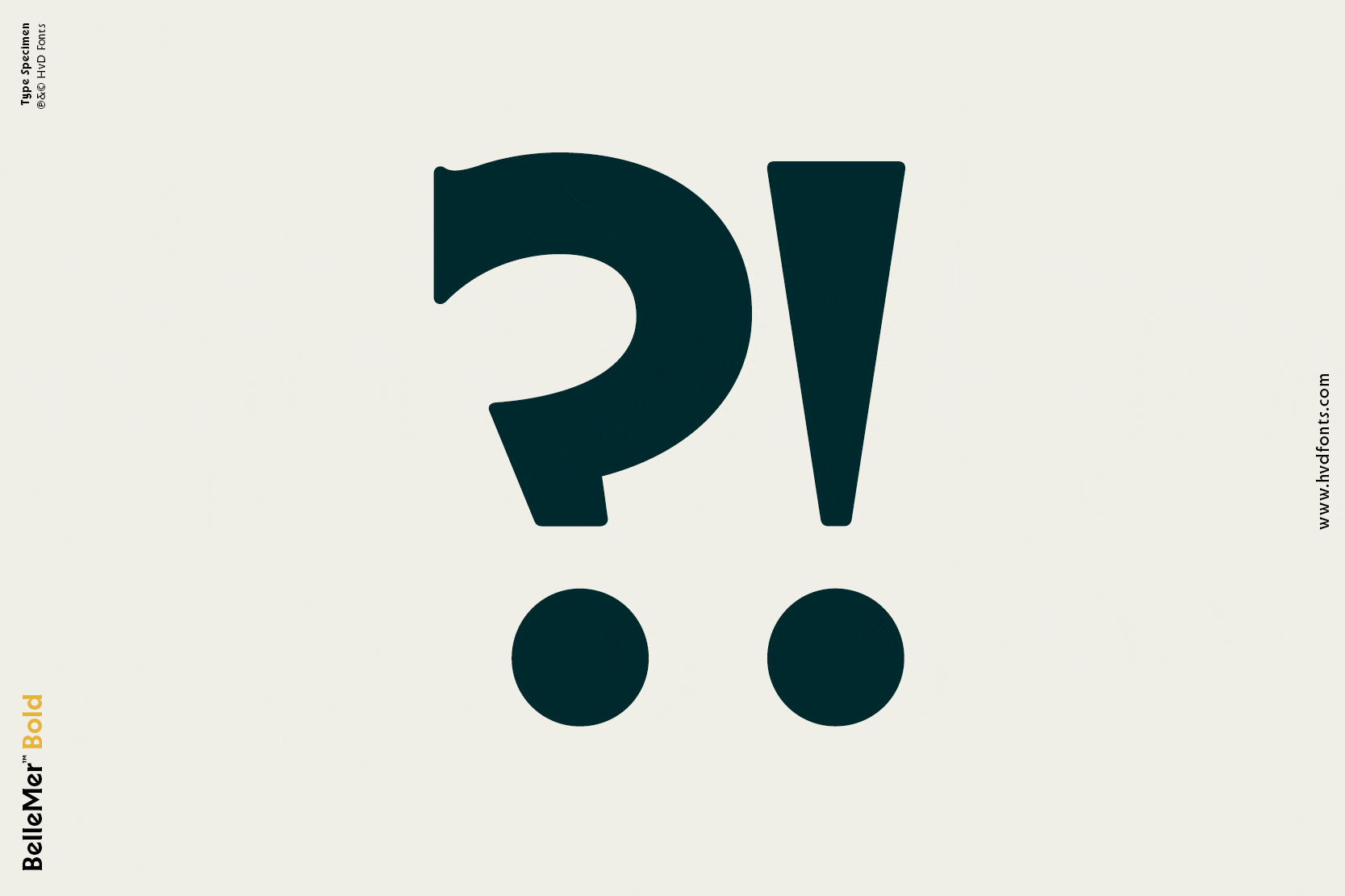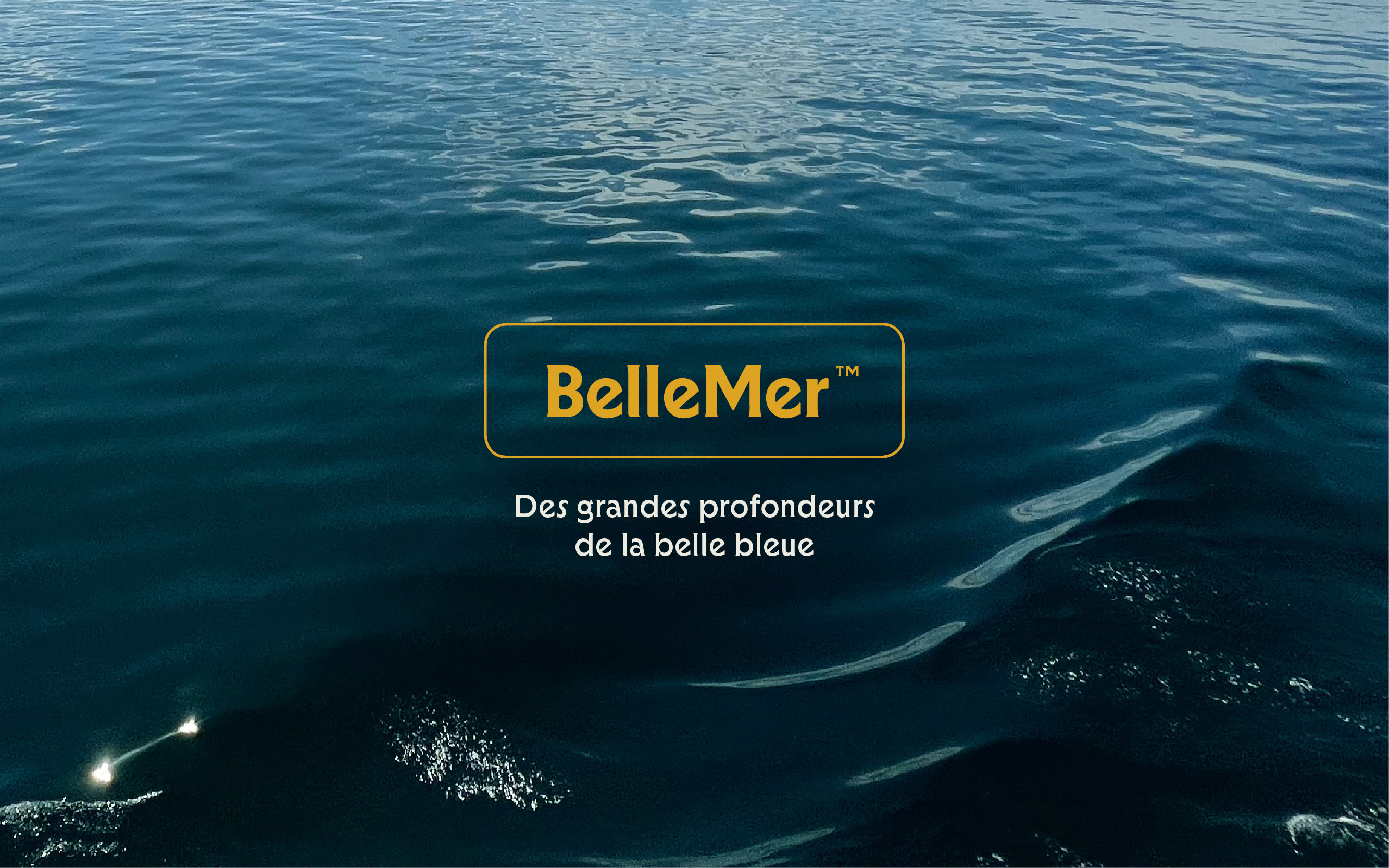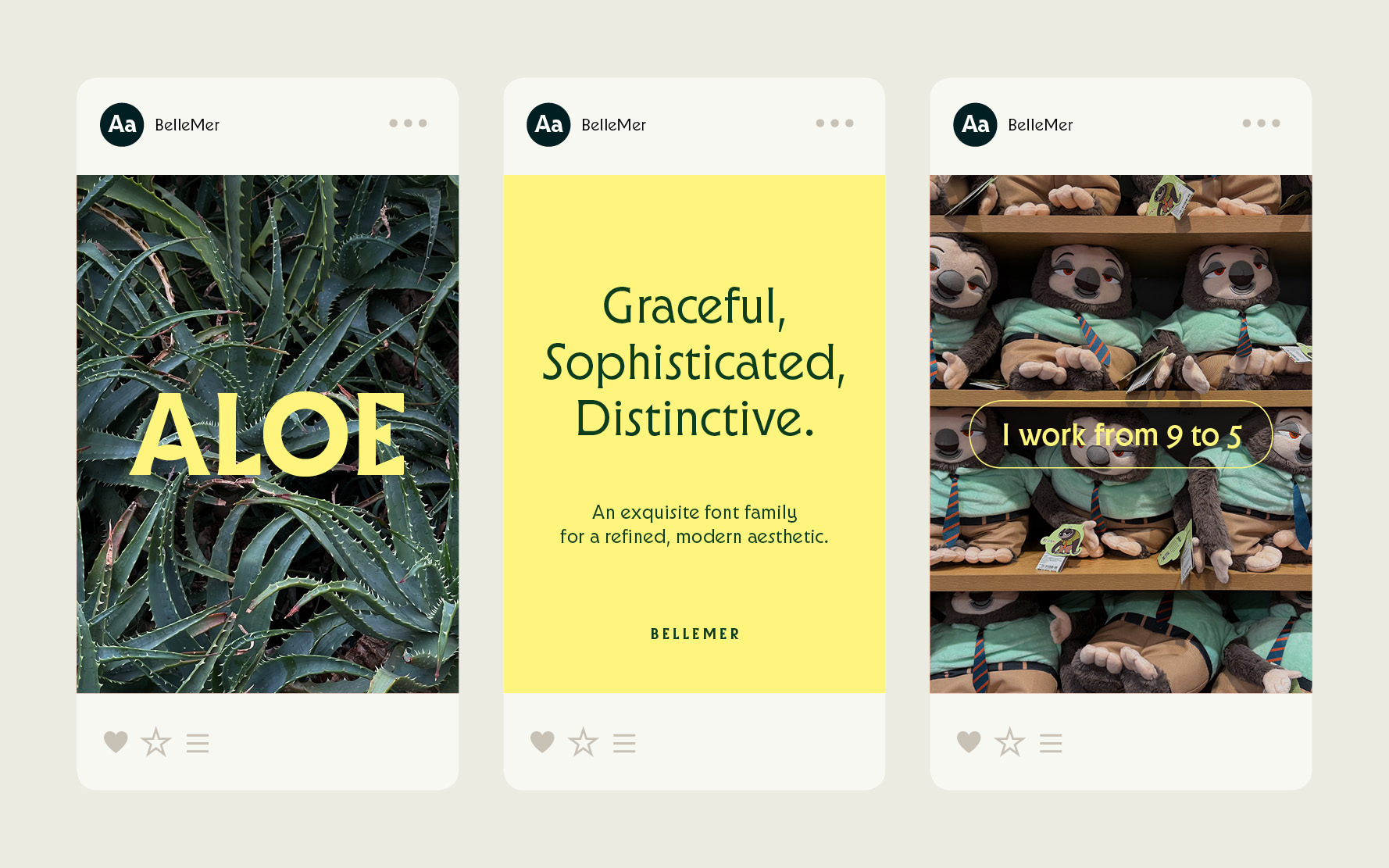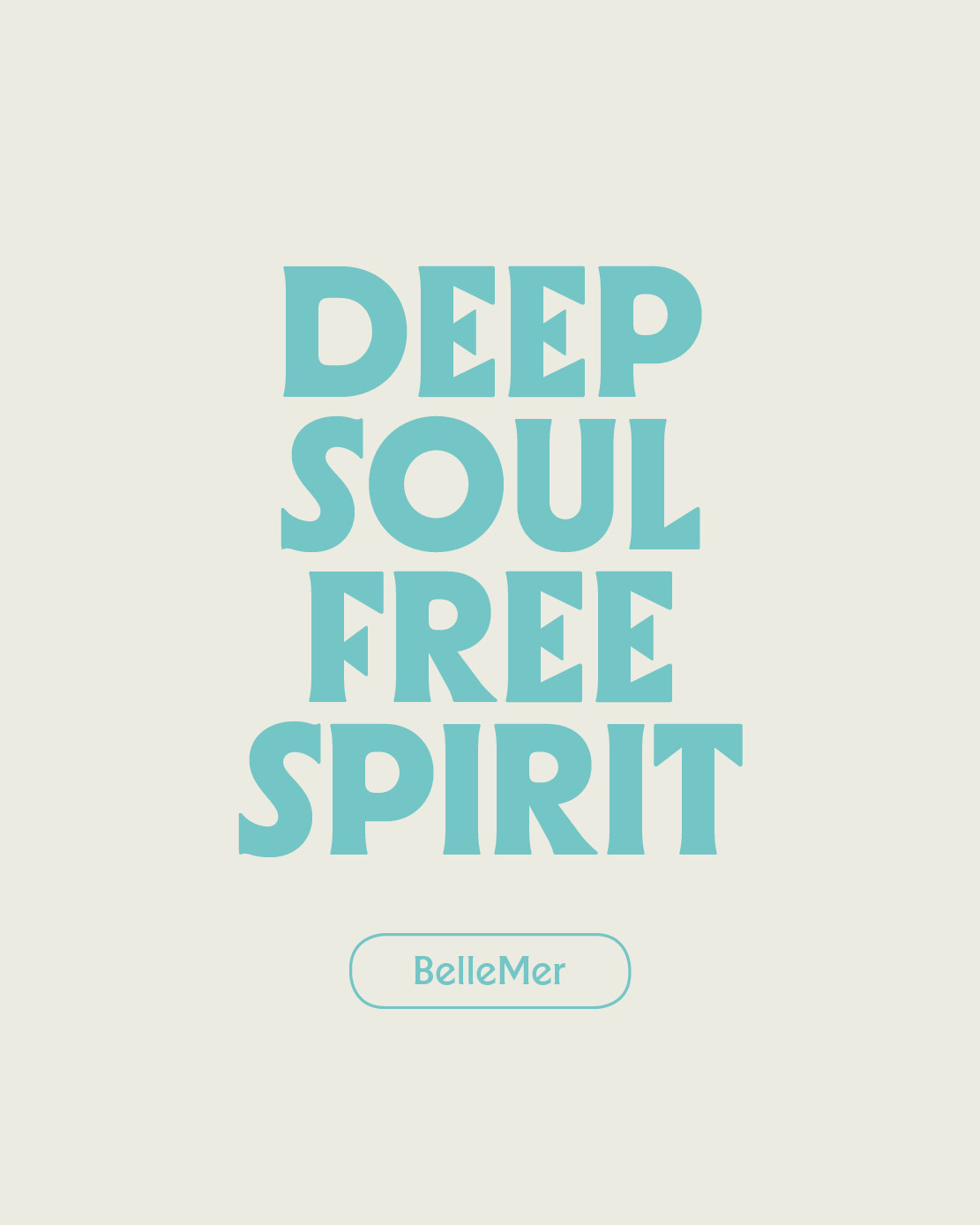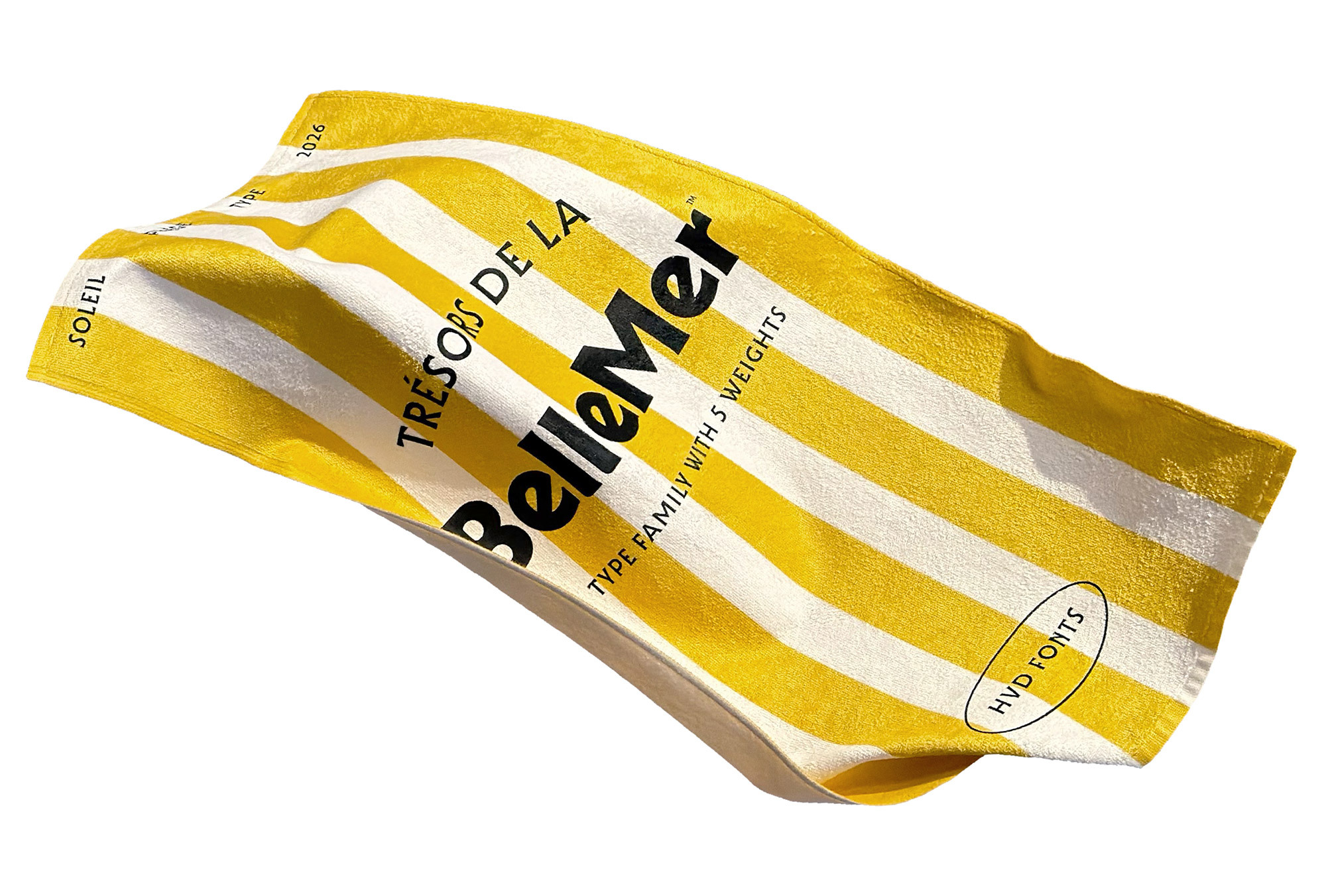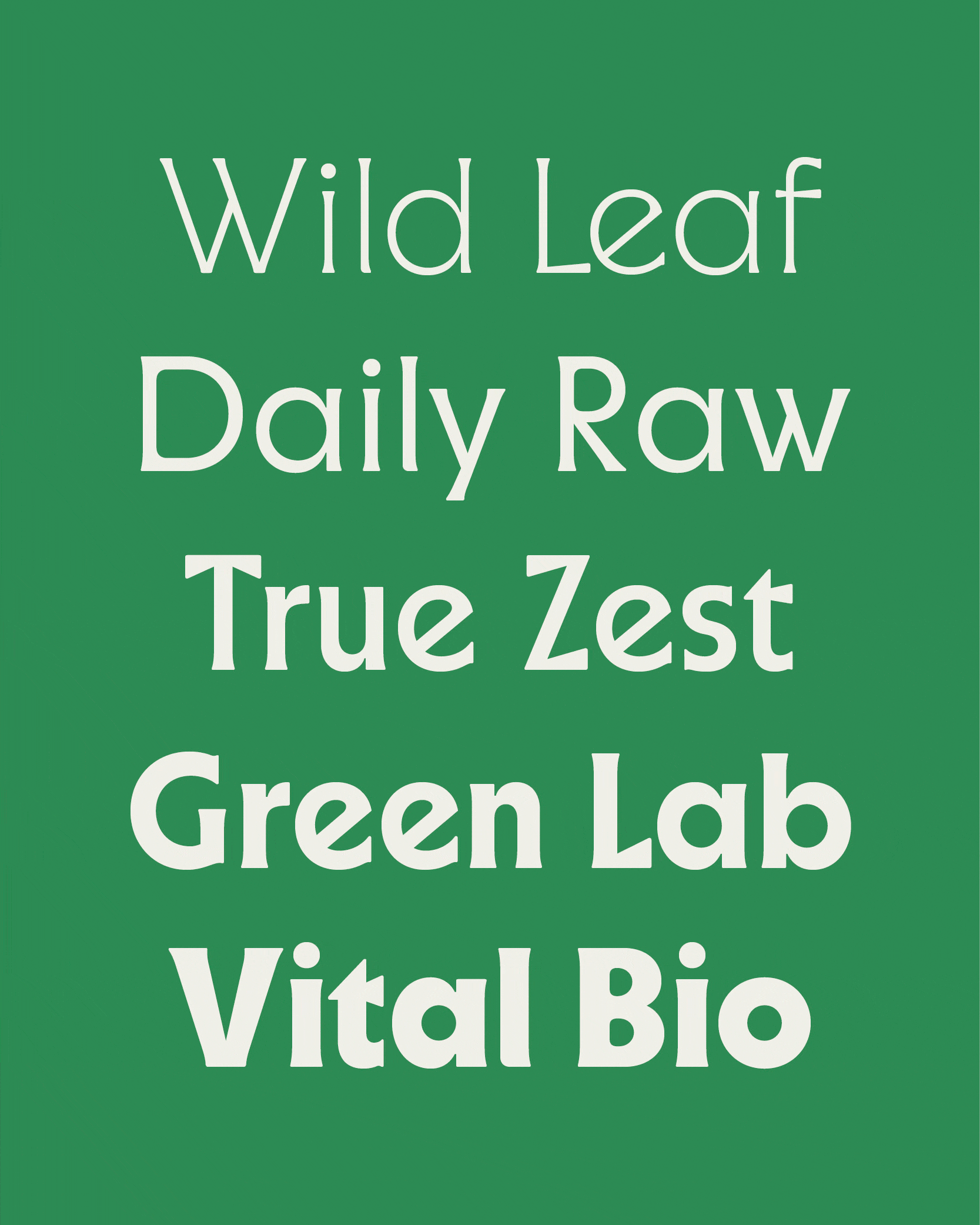
The rugged maritime environment and the aesthetics of the Atlantic coastal region served as a primary source of inspiration for this type family. I was always fascinated by the specific letterforms found in coastal areas and the unique character they convey. From these observations, we developed an alphabet into a contemporary design. The typeface combines a clean structure with soft curves and distinctive, unconventional shapes.
Sometimes, the search for the perfect letter is like a treasure hunt in the depths of the ocean. From an endless array of choices, one must unearth precisely those forms that give an idea its unique expression. Only these characteristic details create an overall picture with high recognition value.
BelleMer is the result of such a search, featuring many distinctive characters. The “g” and the “y”, for example, have a special structure. Irregularities are deliberately incorporated into the typeface to create a lively rhythm. The “A” has a special crossbar, and the “S” tilts to the right. These intentional breaks in symmetry give the typeface a warm and human touch.
With five distinct weights, the type family offers versatile solutions for diverse design requirements. From Light to Black, each weight maintains a consistent balance between organic curves and geometric forms. This hierarchy ensures seamless adaptation across all media: lighter weights prioritize legibility in body text, while the bolder weights provide maximum impact for bigger sizes.
Equipped with tiny serifs pointing outward, the main stems are monolinear. This defining feature consists of tiny, precisely crafted serifs that point gently outward at the ends of the strokes. They lend a subtle liveliness to the otherwise clean and evenly weighted lines.
Complementing this soft aesthetic, the letterforms feature rounded corners on both the inside and the outside. This dual treatment eliminates any harsh or aggressive angles, giving the characters a smooth, organic, and friendly appearance.
Adding a counterpoint to its soft curves, the typeface incorporates sharp, triangular elements within its structure. These geometric accents can be seen in letters like “E”, “T”, or ”L”, where they replace traditional straight cuts or brackets with dynamic, angled terminals.